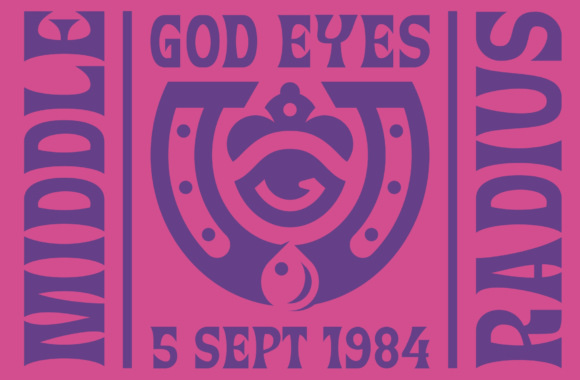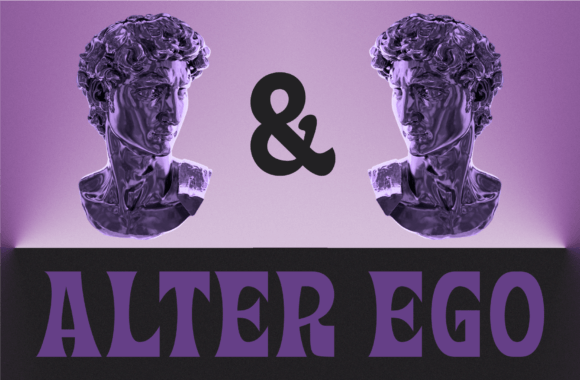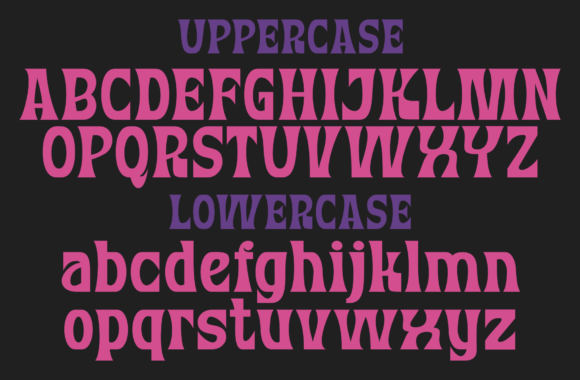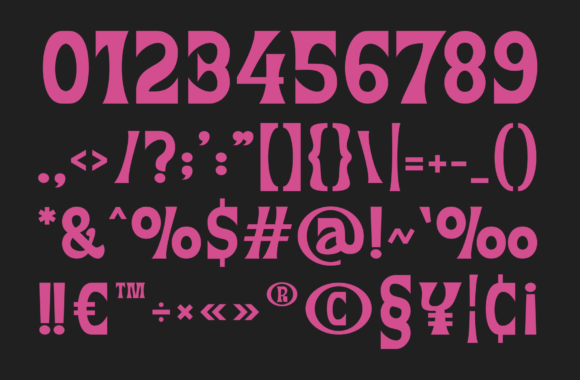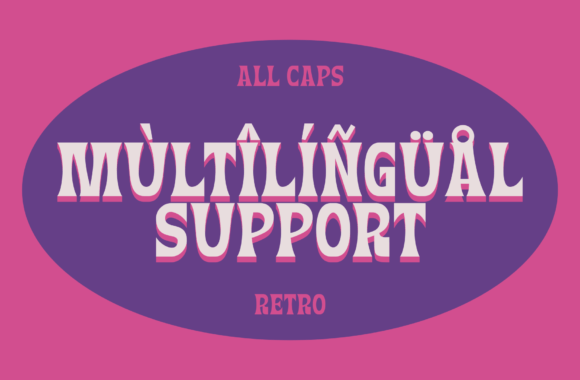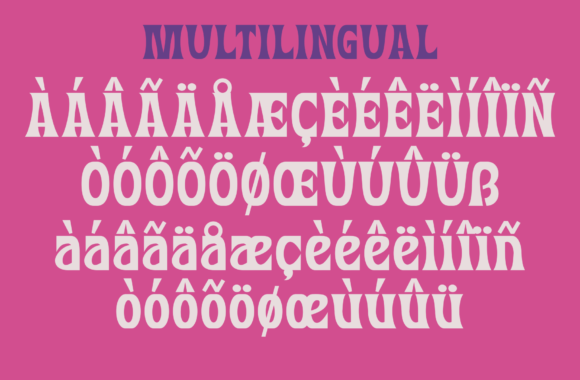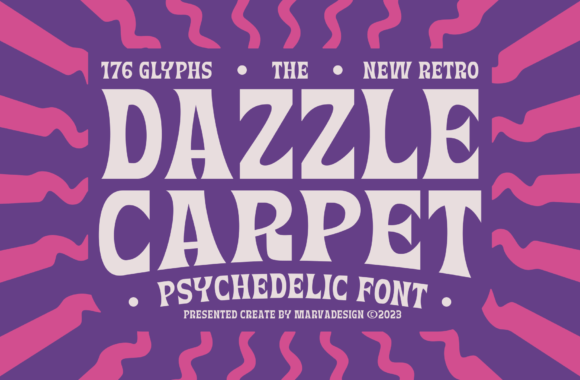
Dazzle Carpet Font: Elevate Your Designs with a Modern and Playful Twist
In the world of typography, fonts play a crucial role in conveying the tone and personality of a design. For designers and crafters looking to add a dash of whimsy to their projects, the Dazzle Carpet font is an excellent choice. This modern and playful font is sure to captivate audiences with its unique blend of classic and contemporary elements.
The Unique Charm of Dazzle Carpet Font
Dazzle Carpet is a font that’s both modern and playful. Its letters have a fun, swirling style that gives them a psychedelic touch. With a serif design, it brings a classic feel to any project, while its lively curves add a contemporary twist. This distinctive combination makes Dazzle Carpet an ideal choice for designers seeking to create visually striking and engaging designs.
Key Features of Dazzle Carpet Font
• Modern and Playful Style: Dazzle Carpet boasts a unique blend of modern and playful elements, making it perfect for designs that require a fresh and youthful approach.
• Swirling Psychedelic Touch: The font’s swirling style gives it a psychedelic touch, adding an extra layer of visual interest to any design.
• Serif Design: The serif design of Dazzle Carpet brings a classic feel to any project, making it suitable for designs that require a touch of sophistication.
• Lively Curves: The font’s lively curves add a contemporary twist to its classic design, ensuring that it remains fresh and engaging.
Perfect for Adding a Dash of Whimsy
Dazzle Carpet font is perfect for designers and crafters looking to add a dash of whimsy to their projects. Its unique blend of classic and contemporary elements makes it an excellent choice for a wide range of designs, from:
• Creative Branding: Use Dazzle Carpet to create bold and eye-catching brand identities that stand out from the crowd.
• Playful Packaging: Add a touch of whimsy to your packaging designs with Dazzle Carpet’s fun and swirling style.
• Digital Art: Dazzle Carpet is perfect for digital artists looking to create visually striking and engaging artwork.
• Crafting Projects: Crafters can use Dazzle Carpet to add a personal touch to their projects, from handmade cards to DIY decor.
Dazzle Carpet font is a unique and versatile font that’s perfect for designers and crafters looking to add a dash of whimsy to their projects. Its modern and playful style, combined with its classic serif design, makes it an excellent choice for a wide range of designs. With its swirling psychedelic touch and lively curves, Dazzle Carpet is sure to captivate audiences and elevate your designs to the next level.